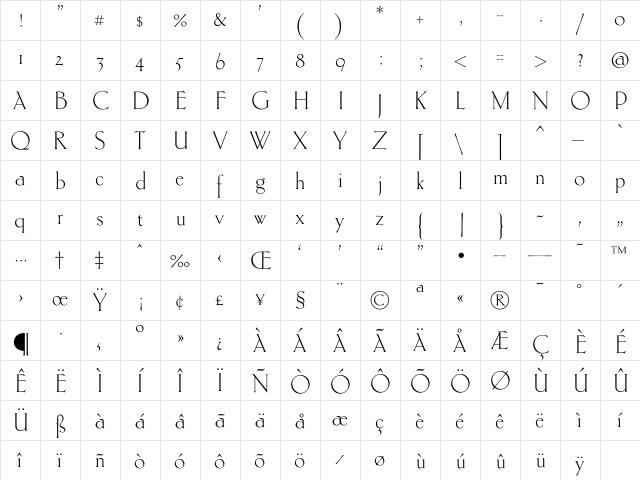
Ehmcke-HTF Regular
Ehmcke-HTF takes a measured approach to typography — its balanced proportions and neutral character make it a reliable workhorse for both digital and print work.